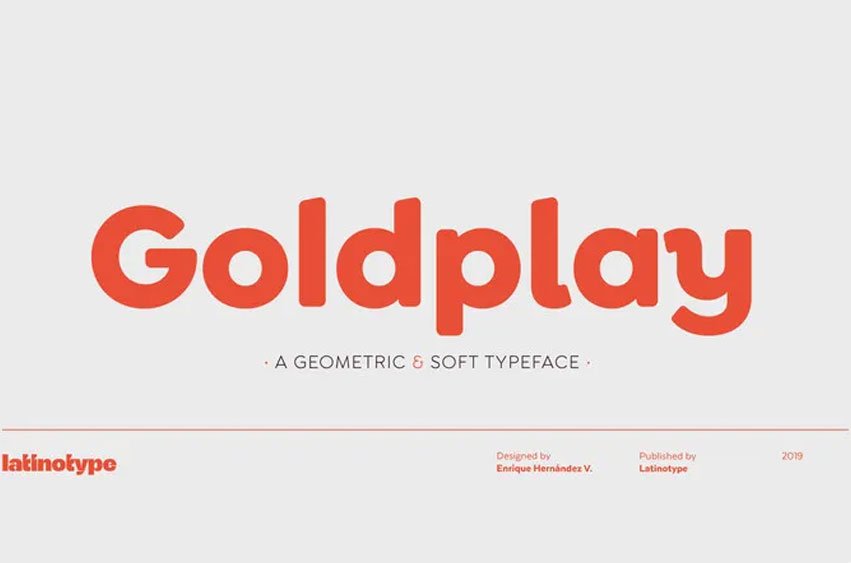
Goldplay Font
Goldplay Font has gentle curves for terminals, an interesting and cheerful look, and modern design that is still classic in terms of dimensions and appearance. Ideal for headlines branding logotypes publications books motion graphics television and web usage. Of all the fonts used in Goldplay, it is characterized by a high x-height that makes it look rather classy.
Comes in two types from Thin to Black weights with italics in between, that’s 28 fonts in total! Modern fonts are clean and timeless, they are perfect for corporate and magazine designs, for headlines or any type of graphic design such as books or magazines.